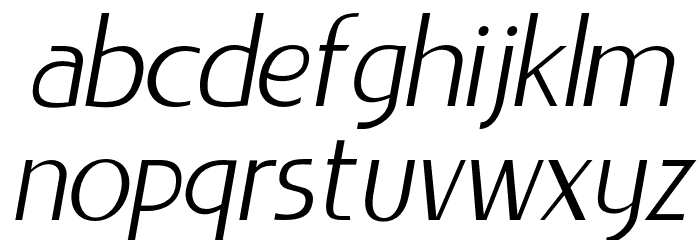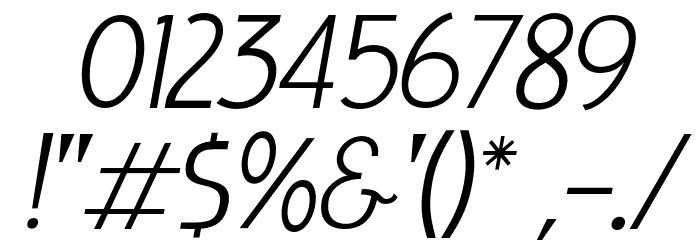
LIEUR-LightItalic Font
This font exhibits a sleek and modern design with a light and elegant touch. The characters are slightly italicized, giving them a dynamic and forward-leaning appearance. The strokes are thin, contributing to a light overall weight, and the design maintains a consistent and harmonious flow across both uppercase and lowercase letters. The numerals and special characters are crafted with the same attention to detail, ensuring uniformity throughout. The font's clean lines and subtle curves make it suitable for a variety of applications where a contemporary and sophisticated look is desired.
A sleek, modern, and light italic font with elegant thin strokes.
- Font: LIEUR-LightItalic
- Proposed Projects: Ideal for branding, editorial design, fashion magazines, and modern web design.